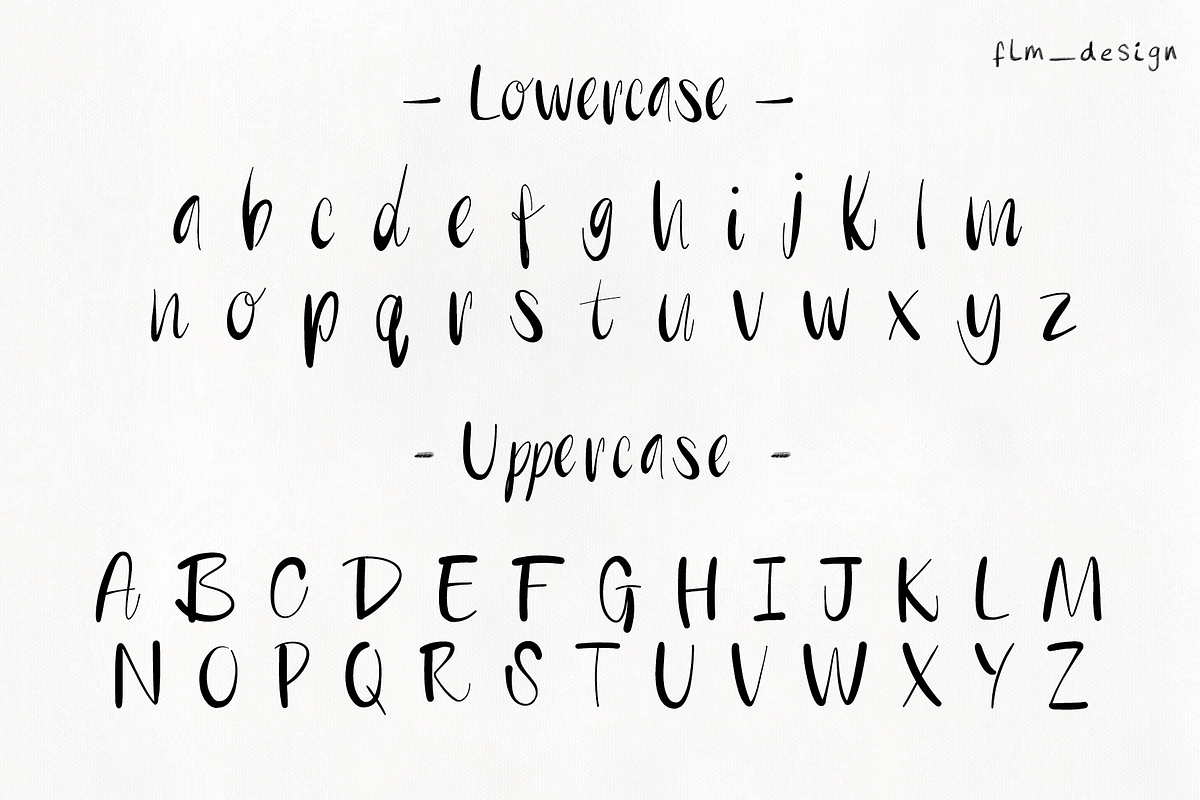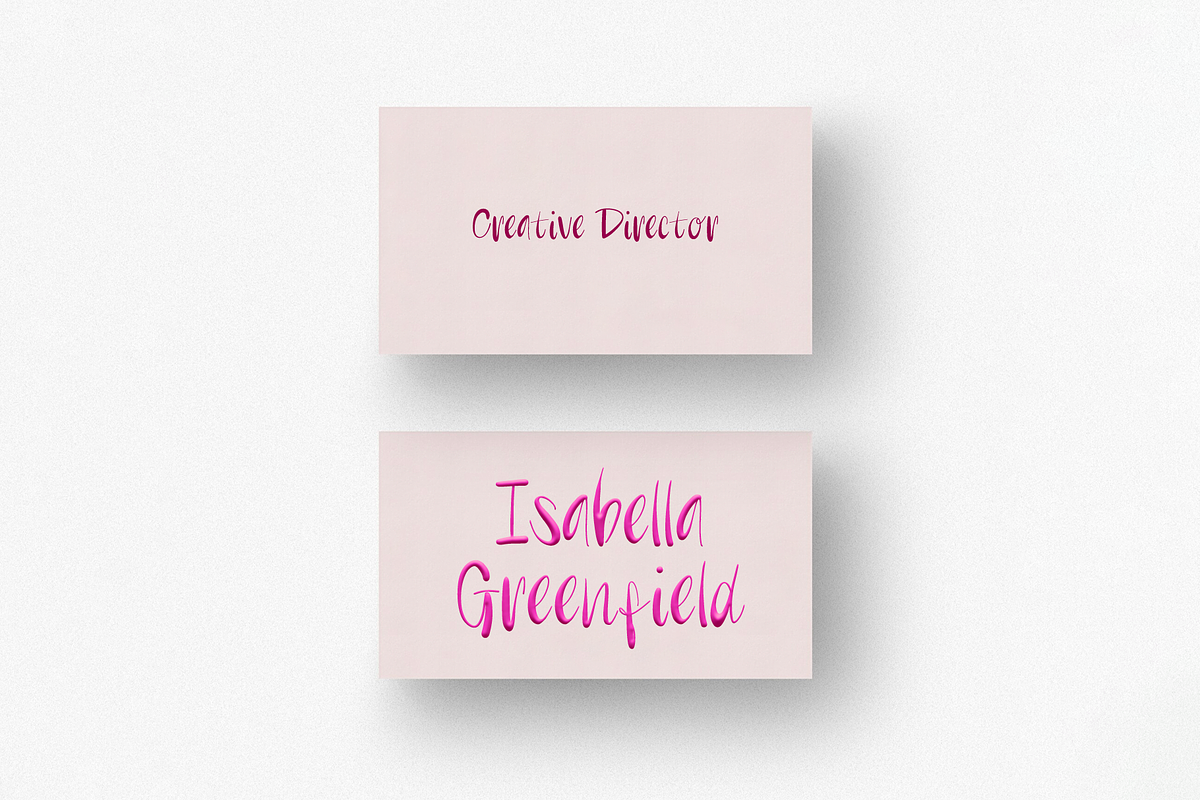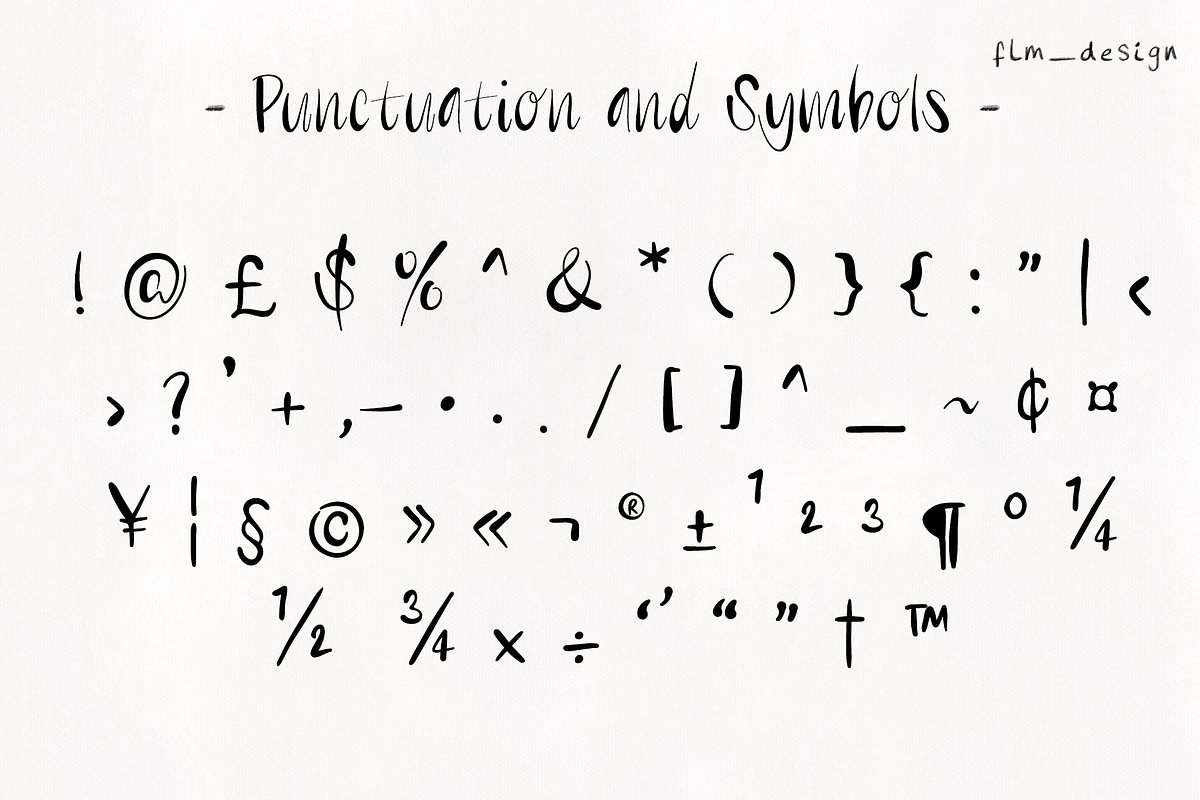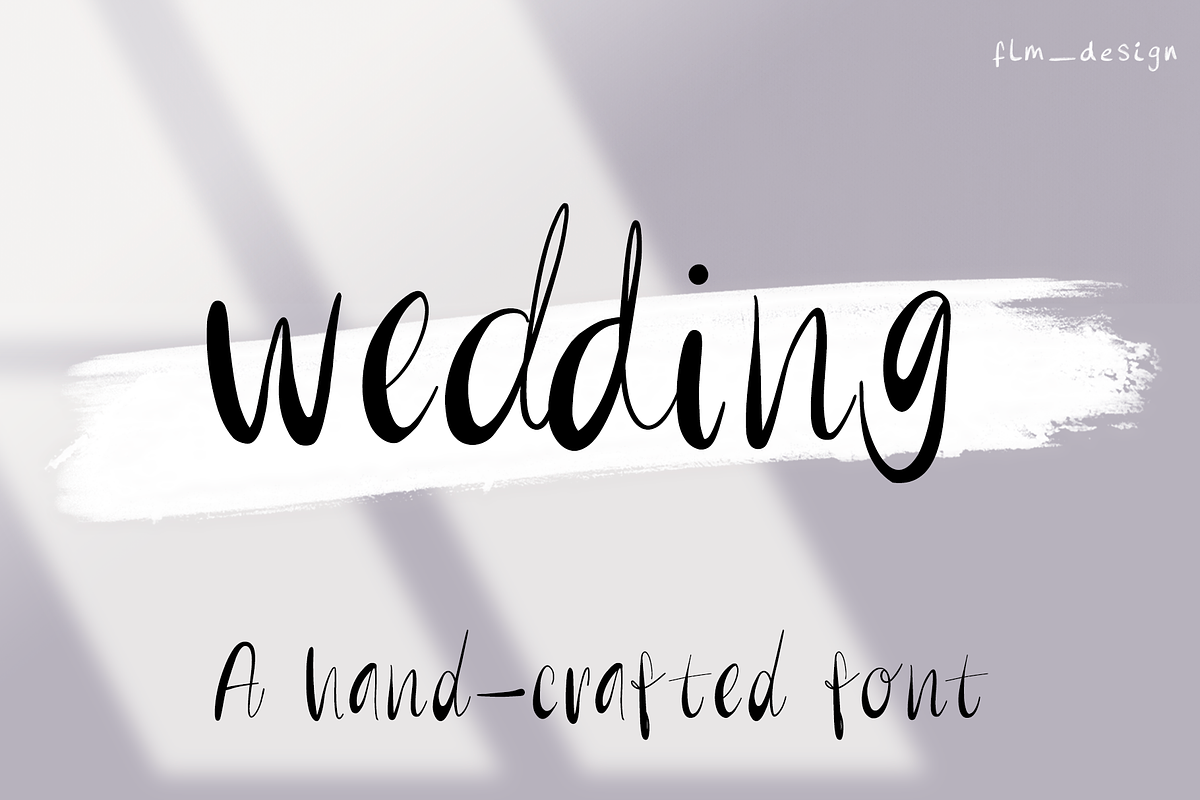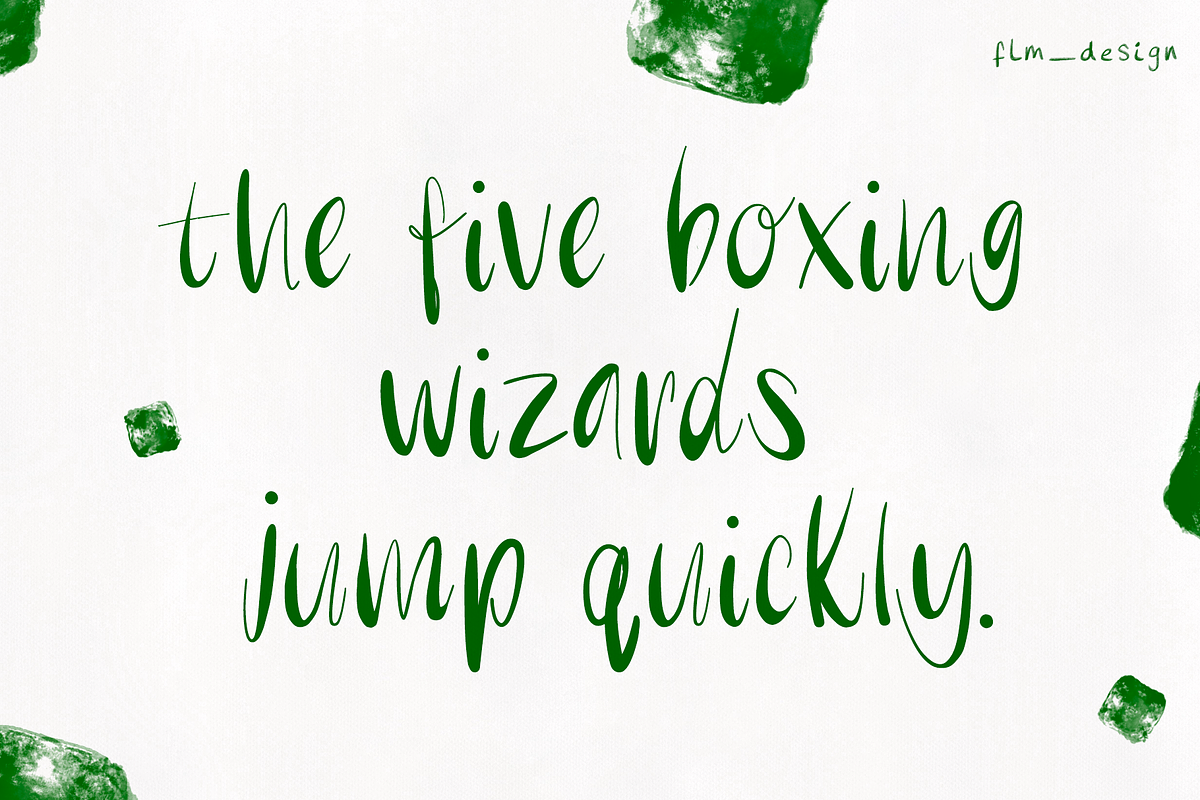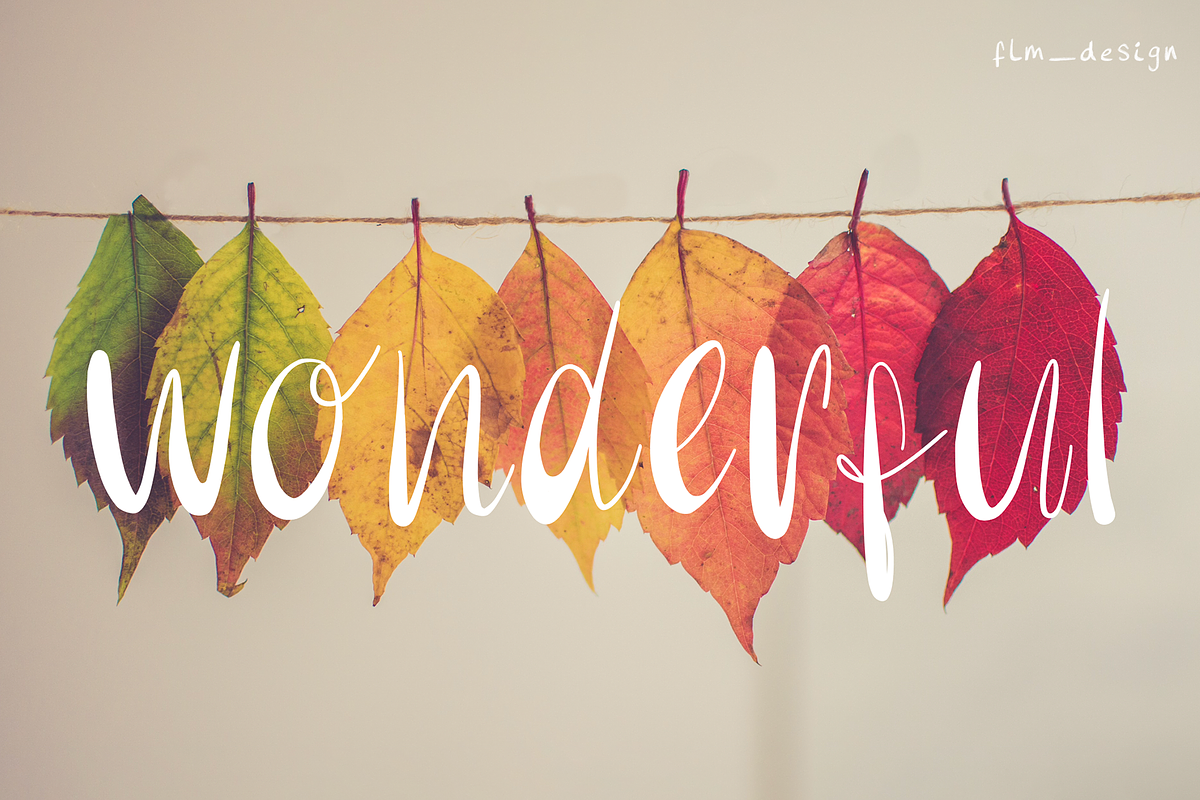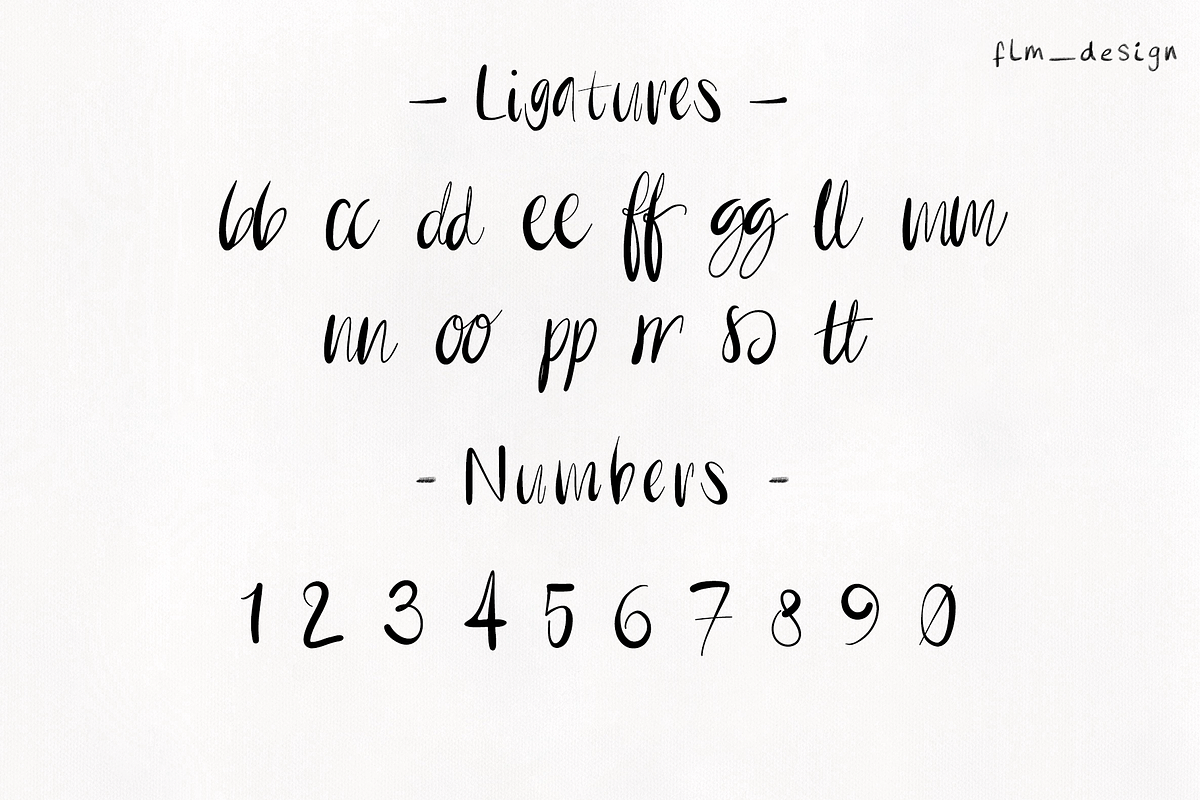
Wedding Handwritten Font
Wedding is a handcrafted OTF vector font with extra ligatures and a wide array of punctuation and symbols which is both premium and playful. It can be used for anything from social, print, posters, cards, websites, business cards, name cards, letters, the list goes on!